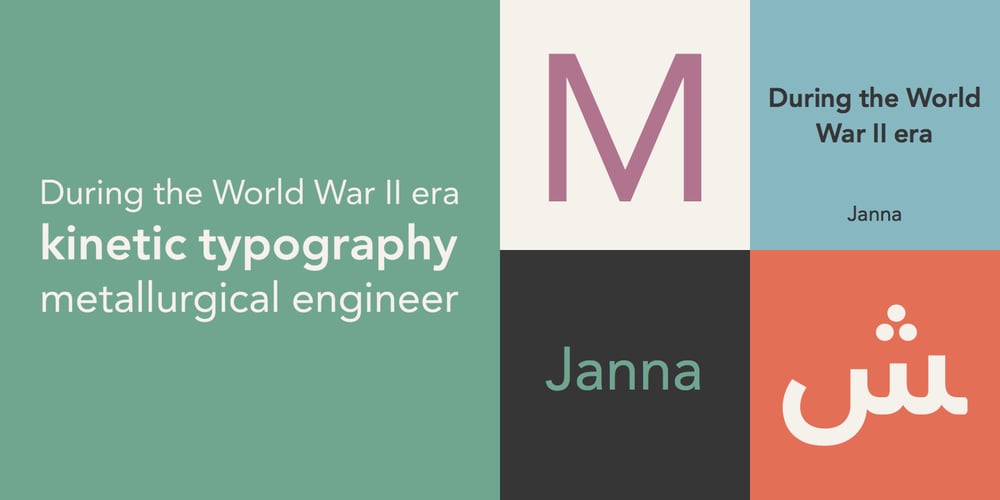
Janna Font Family was designed by Nadine Chahine and published by Linotype. Janna contains 2 styles and family package options. Janna is designed by Lebanese designer Nadine Chahine. It is based on the Kufi style but incorporates aspects of Ruqaa and Naskh in the letter form designs. This results in what could be labeled as a humanist Kufi, a Kufi style that refers to handwriting structures and slight modulation to achieve a more informal and friendly version of the otherwise highly structured and geometric Kufi styles. Janna, which means heaven” in Arabic was first designed in 2004 as a signage face for the American University of Beirut. So, the design is targeted towards signage applications but is also quite suited for various applications from low resolution display devices to advertising headlines to corporate identity and branding applications. The Latin companion to Janna is Adrian Frutiger’s Avenir which is included also in the font. The font also includes support for Arabic, Persian, and Urdu as well as proportional and tabular numerals for the supported languages.”